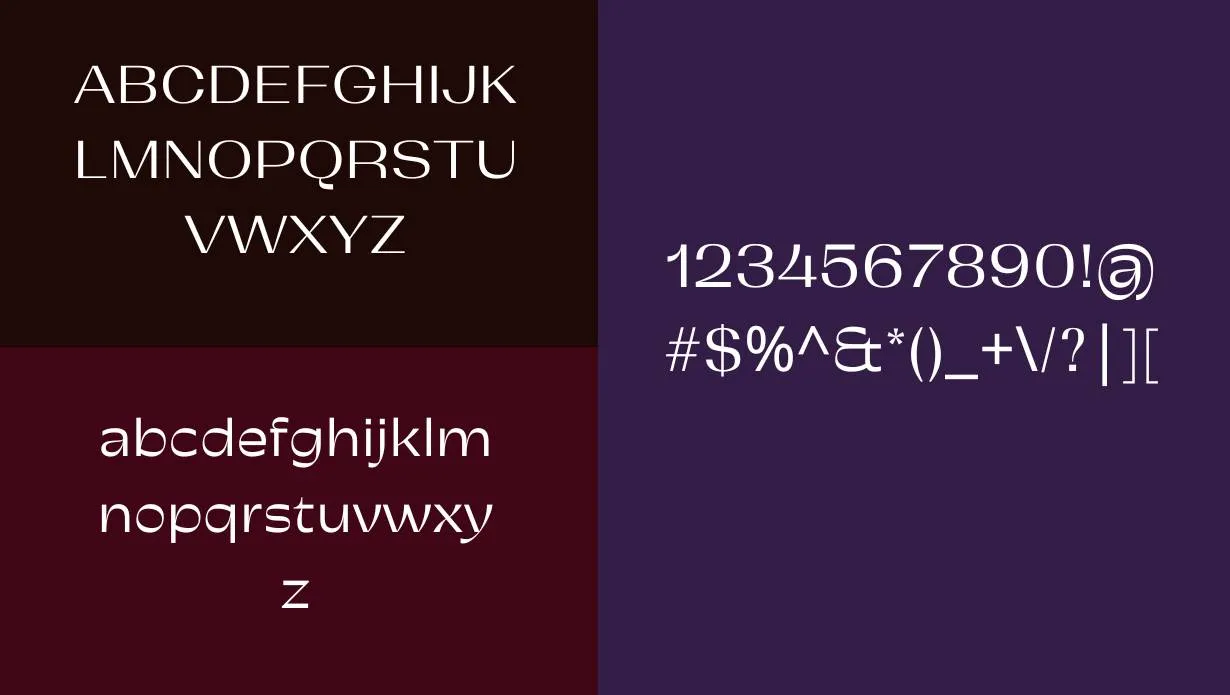
The Continua Font is a smooth and flowing choice in typography, perfect for projects that desire a sense of continuity and harmony. Its sleek characters make it ideal for a wide range of applications, ensuring a modern and cohesive look.
| Name | Continua Font |
| Designer | Adrien Menard |